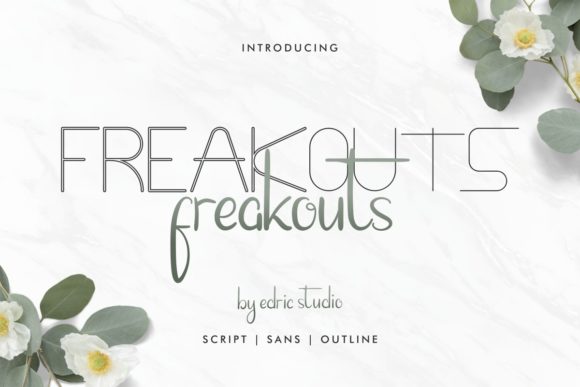
Get ready to unleash your creativity with Freakouts Font, a vibrant and expressive script font duo that will transform your designs into captivating masterpieces.
Imagine your words dancing across the page, infused with the playful charm of Freakouts Font. Its meticulously crafted curves and playful swashes create a captivating visual symphony, perfect for adding a touch of whimsy and style to your projects.
With Freakouts Font, you'll have two fonts at your fingertips, each with its own unique character. Use them together to create harmonious compositions or mix and match to achieve striking contrasts. Whether you're designing eye-catching logos, enchanting invitations, or charming social media posts, Freakouts Font will elevate your creations to new heights.
The possibilities are endless with Freakouts Font. Dive into the world of vintage design, where nostalgia meets modernity. Create enchanting posters that evoke the golden age of advertising or add a touch of retro charm to your packaging designs. With its PUA encoding, accessing the font's full range of glyphs and swashes is a breeze, giving you the power to customize your designs with effortless ease.
But the magic of Freakouts Font goes beyond its versatility. It's a font that speaks to the heart, evoking emotions and inspiring creativity. Its playful nature will bring a smile to your face, while its elegant curves will add a touch of sophistication to any project.
Don't settle for ordinary fonts. Embrace the extraordinary with Freakouts Font. Let your imagination soar and create designs that leave an unforgettable impression. Whether you're a seasoned designer or just starting your creative journey, Freakouts Font will empower you to express yourself with style and passion.